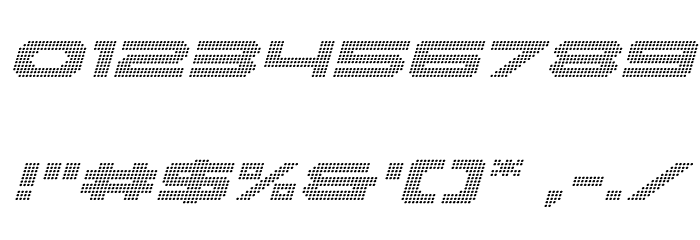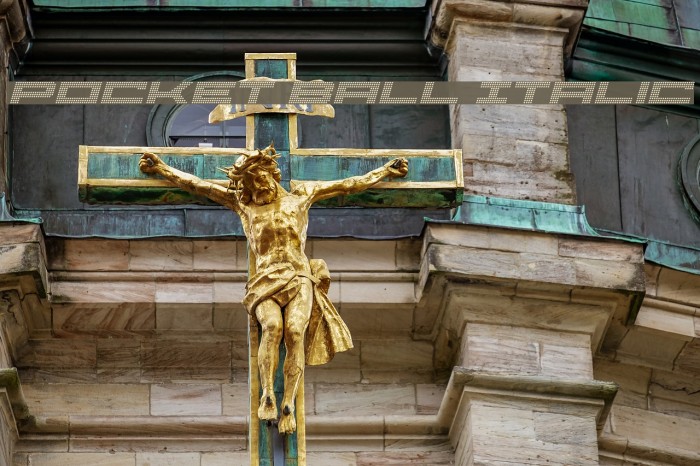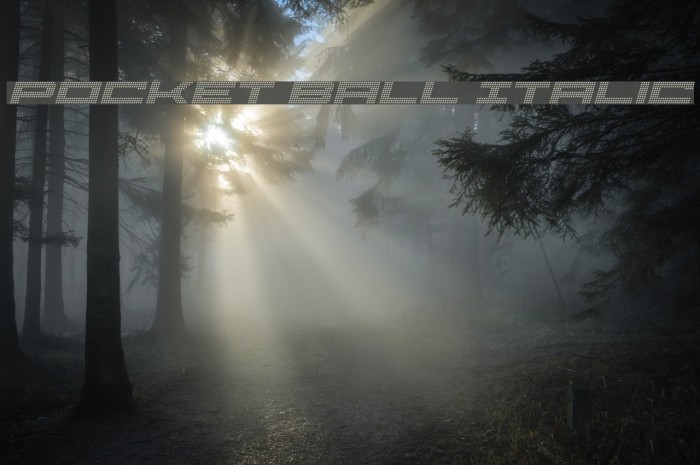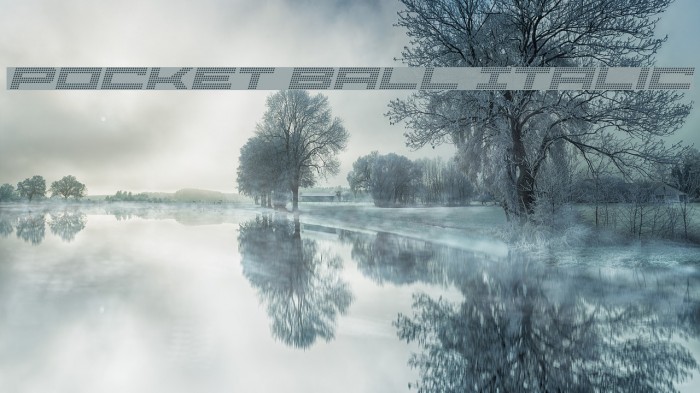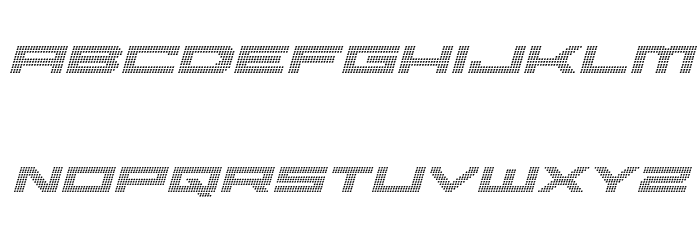
Pocket Ball Italic Font
This font features a unique dotted pattern that forms each character, giving it a digital and modern appearance. The letters are slanted, suggesting an italic style, and the overall design is sleek and futuristic. The font maintains a consistent structure across uppercase, lowercase, and numerical characters, with special characters also following the same dotted motif. The spacing between characters is uniform, ensuring readability while maintaining its distinct style. This font is ideal for projects that require a tech-savvy or contemporary look.
A modern, dotted italic font with a digital aesthetic.
• Proposed Projects: Ideal for tech-related branding, digital interfaces, futuristic designs, and creative advertising.
• Category: Decorative/Display
• Bold: No
• Italic: Yes
• Weight: Regular
• Width: Normal
• Character Spacing: Normal
• Contrast: Low
• Overall Style: Modern
• Use Case: Logos, Headlines, Digital displays